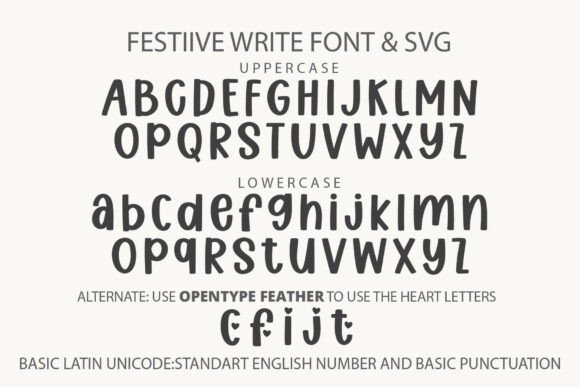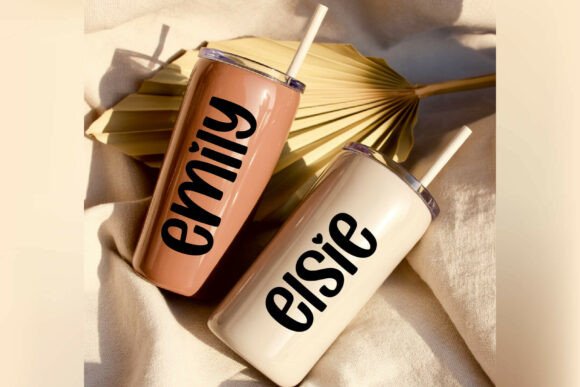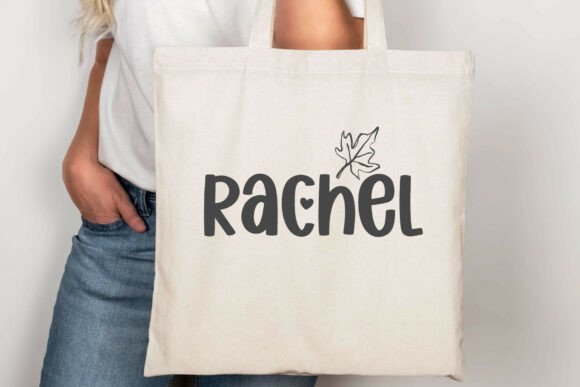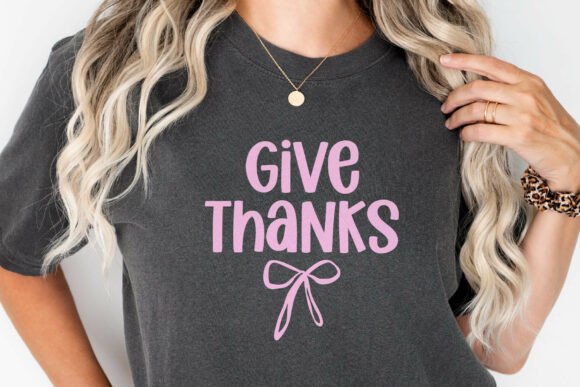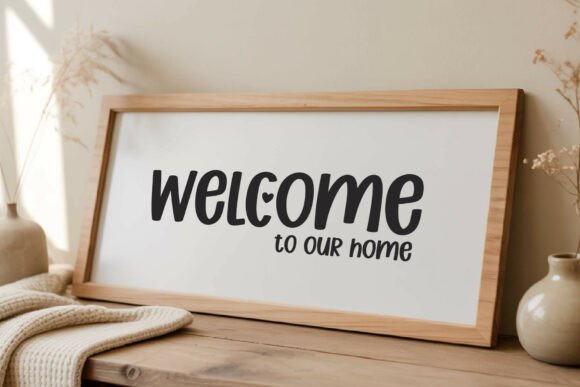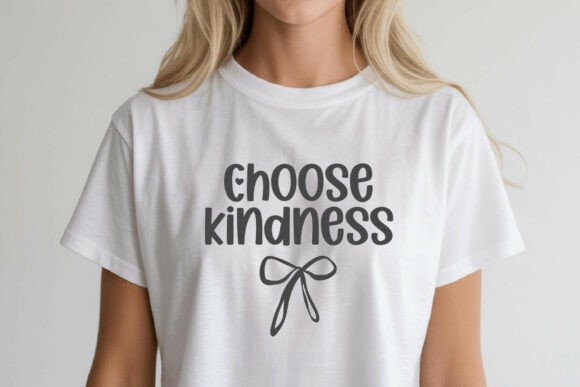
Introducing Festive Write Font: Add a Touch of Whimsy to Your Designs
Are you looking for a font that can add a dash of festivity and playfulness to your designs? Look no further than Festive Write, a charming handwritten font with optional heart letters. This delightful font is perfect for designers and crafters who want to create unique and eye-catching projects for special occasions or everyday use.
What Makes Festive Write Special?
Festive Write is a carefully crafted handwritten font that features optional heart letters, which can be easily activated using OpenType features. This means that you can swap select letters (c, f, i, j, t) with their heart-accent versions, adding an instant touch of charm to your designs. Whether you’re working on a project for a client or creating something for personal use, Festive Write is sure to bring a smile to anyone’s face.
Use Festive Write for a Variety of Projects
The versatility of Festive Write makes it perfect for a wide range of projects, including:
- Names: Add a personal touch to personalized gifts, such as monogrammed towels or engraved jewelry.
- Shirts: Create custom t-shirts, hoodies, or hats with a festive twist.
- Tumblers: Design unique and colorful tumblers for hot beverages.
- Totes: Add a playful touch to reusable tote bags.
- Stickers: Create fun and colorful stickers for laptops, water bottles, or journals.
- Cards: Design one-of-a-kind greeting cards for special occasions.
Tips for Using Festive Write
To get the most out of Festive Write, here are a few tips:
- Pair Festive Write with other fonts to create a unique and eye-catching combination.
- Don’t be afraid to get creative and try out new and unusual design ideas.
Why Designers and Crafters Love Festive Write
Festive Write has quickly become a favorite among designers and crafters due to its:
- Unique and playful design: The heart-accent letters add a touch of whimsy and charm to any design.
- Versatility: Festive Write can be used for a wide range of projects, from digital designs to handmade crafts.